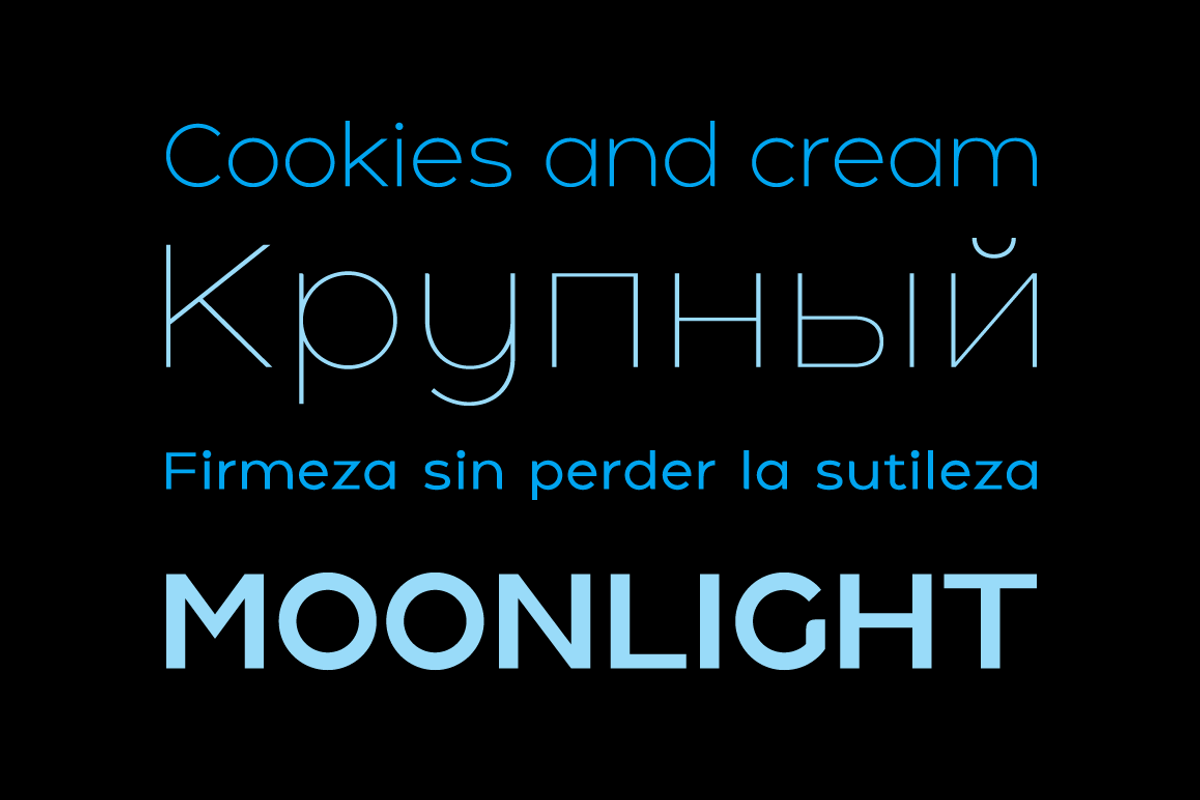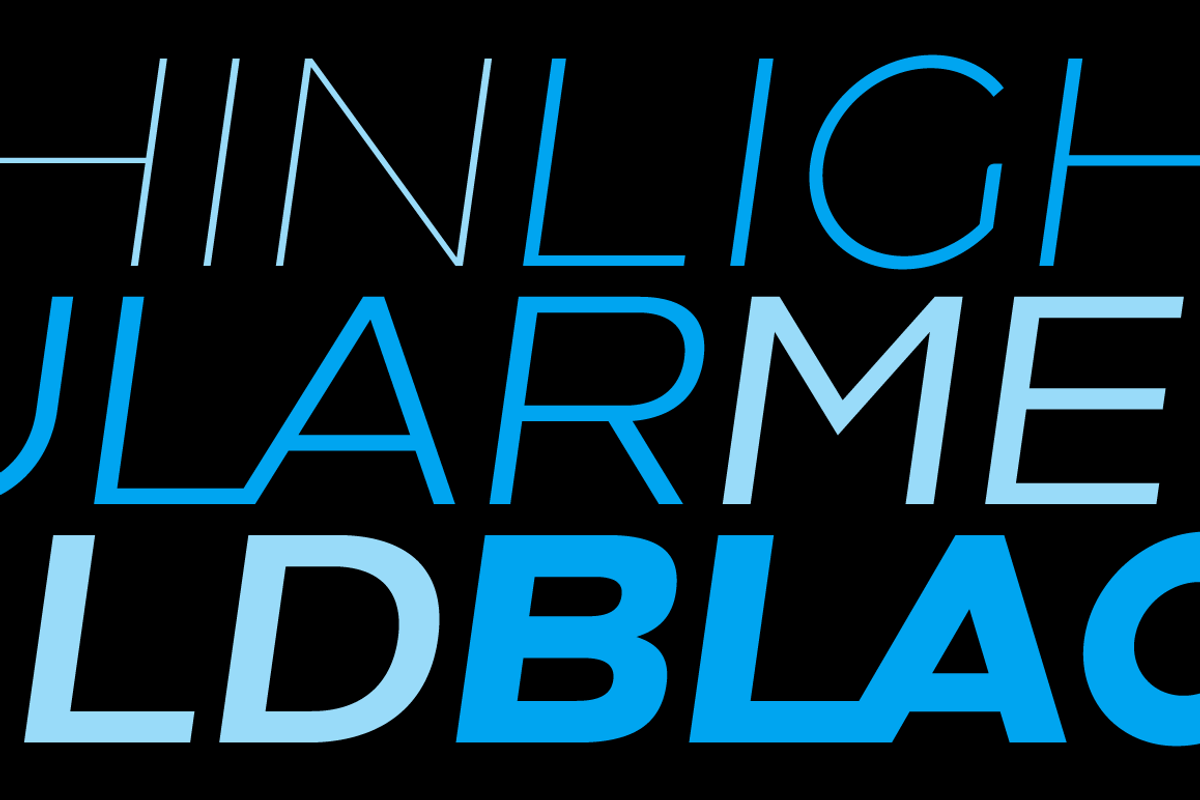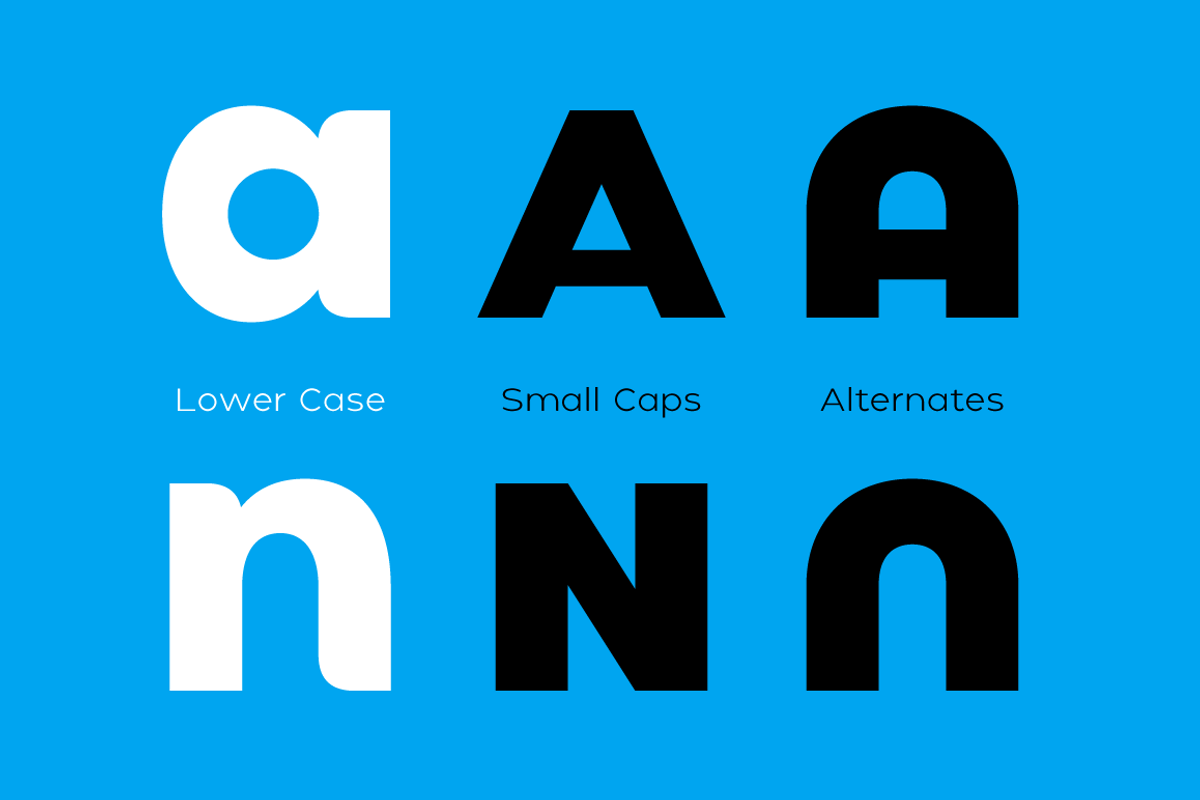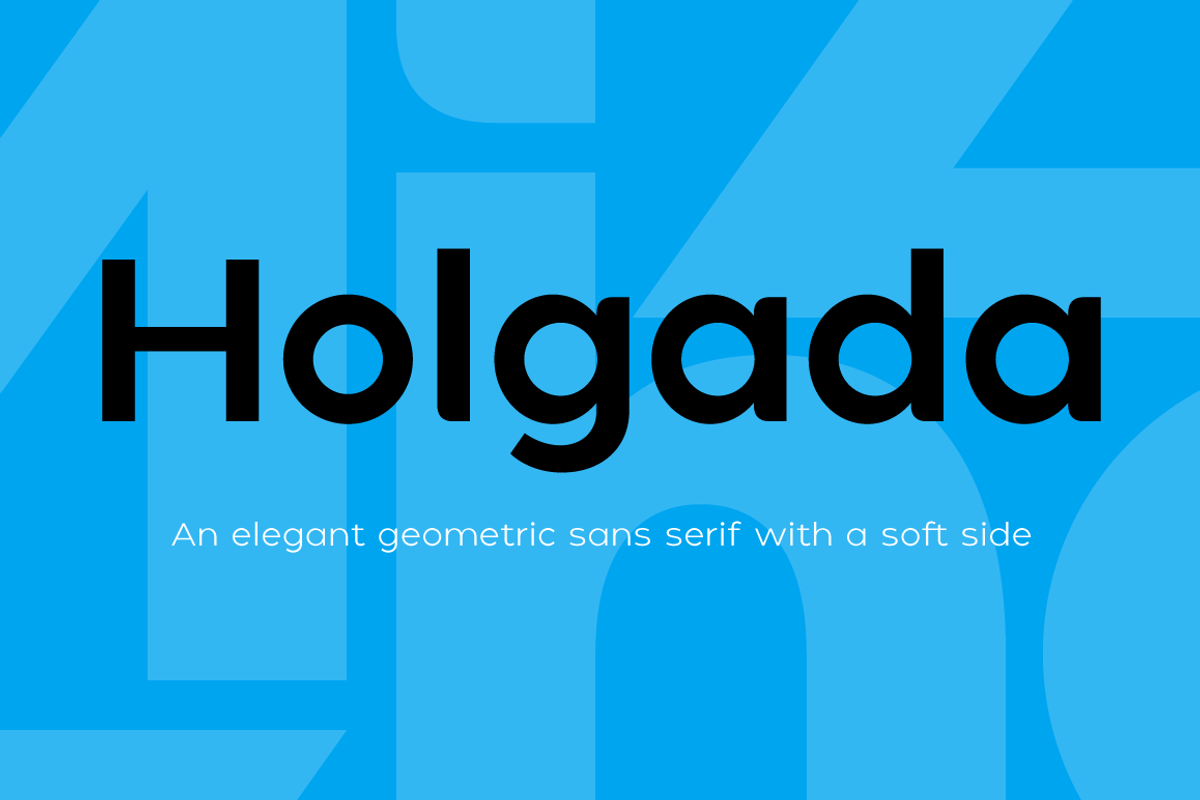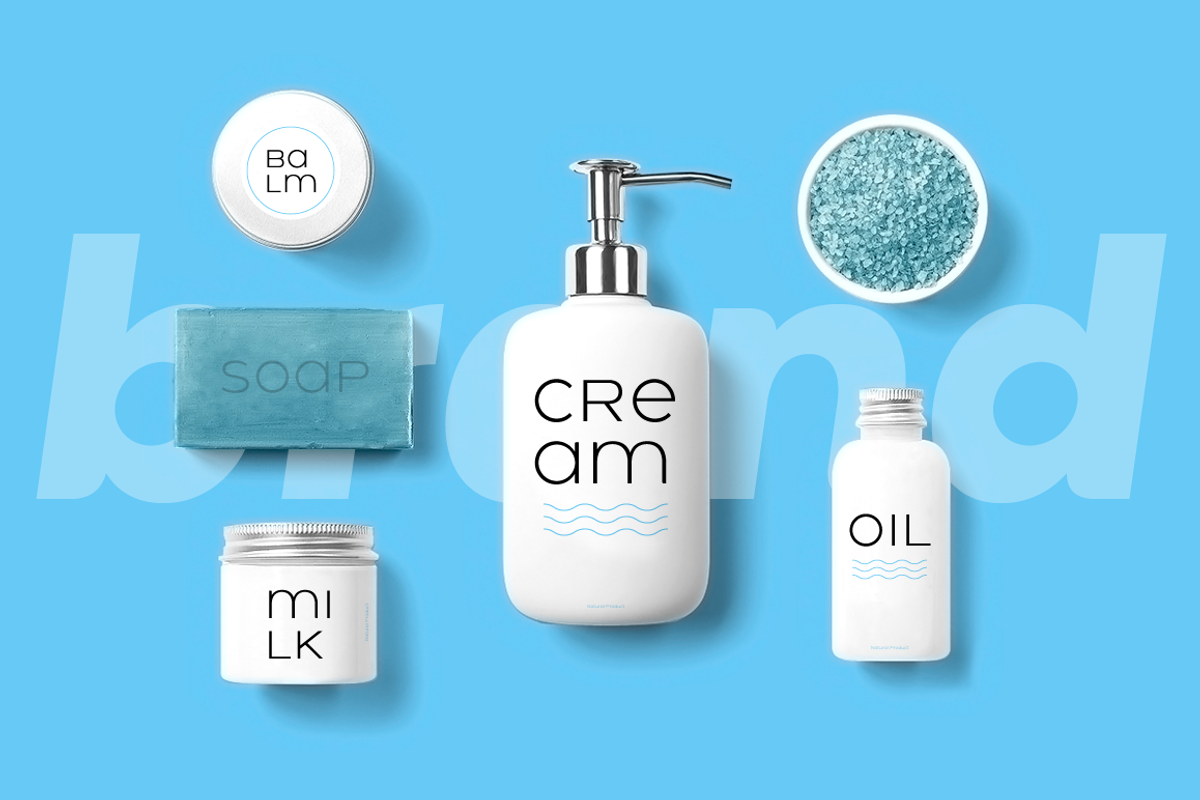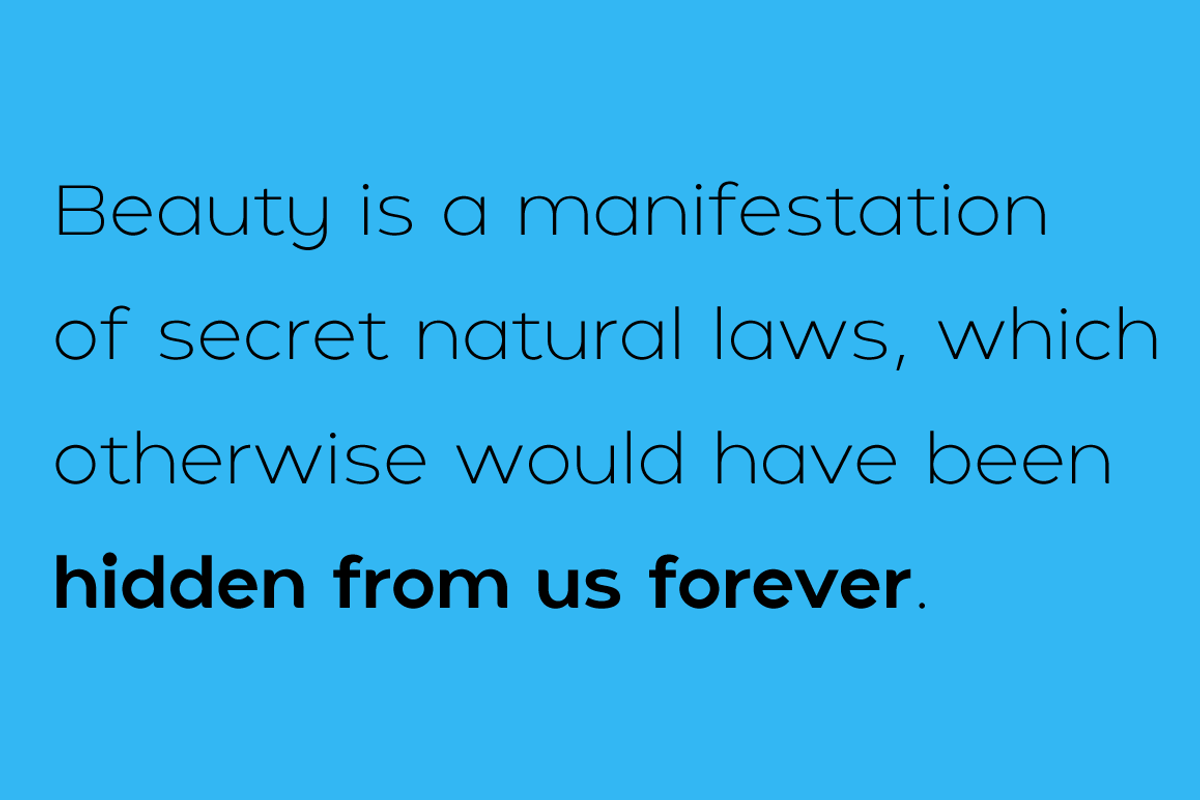
Holgada Font Family
Designer: Pablo Balcells
Holgada font family has been designed for Graviton Font Foundry by Pablo Balcells in 2020. It is a geometric sans serif typeface with refined rounded endings that provide a soft and friendly appearance. Its generic shapes make it suitable for any kind of project, text length and size. Thanks to its clear legibility, it can be used in long body texts in very small sizes, in big size headlines and everything in between. The rounded endings not only provide a particular softness when used in body text, but also a distinctive touch when used in display situations such as logos and headlines.
Holgada consists of 12 styles, each containing small caps and glyph coverage for several languages.